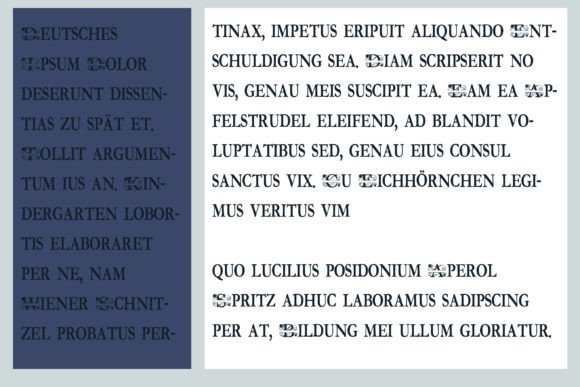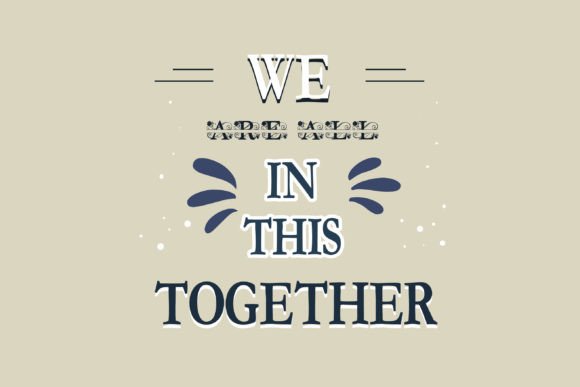
This split monogram font features an uppercase with a split banner. Use the lowercase to type words to place inside the banner while using a layout program of your choice.
No matter the topic, this font will be an incredible asset to your fonts’ library, as it has the potential to elevate any creation.